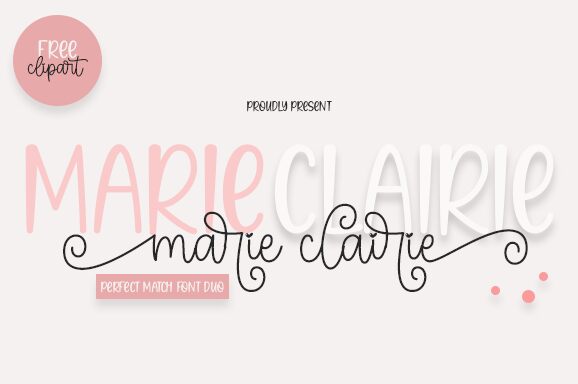
Marie Clairie, designed by Fillo Graphic, is a delightful and charming semi-light font that adds a touch of playfulness to any project. With its cute handwritten style, this font is perfect for children's books, greeting cards, and whimsical illustrations. Its gentle weight gives it an airy feel while maintaining legibility. Whether you're creating a sweet logo or designing invitations for an adorable baby shower, Marie Clairie will infuse your projects with joy and innocence. Let this endearing typeface bring your creative visions to life and captivate hearts of all ages.